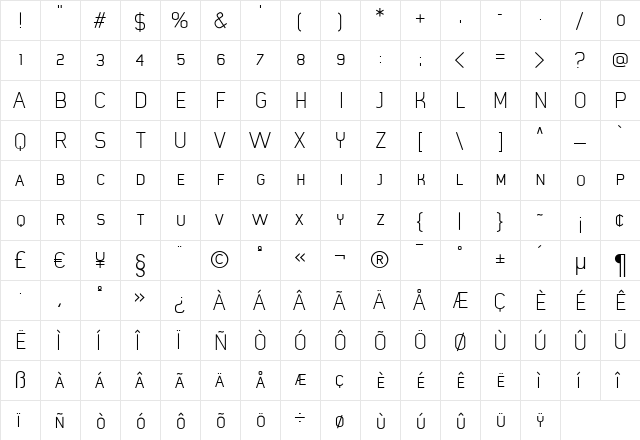
Mister Giacco Caps Light Regular
Design Context for Mister Giacco Caps Light Typeface
Mister Giacco Caps Light takes a measured approach to typography — its balanced proportions and neutral character make it a reliable workhorse for both digital and print work. The delicate stroke weight brings airiness and refinement to layouts.